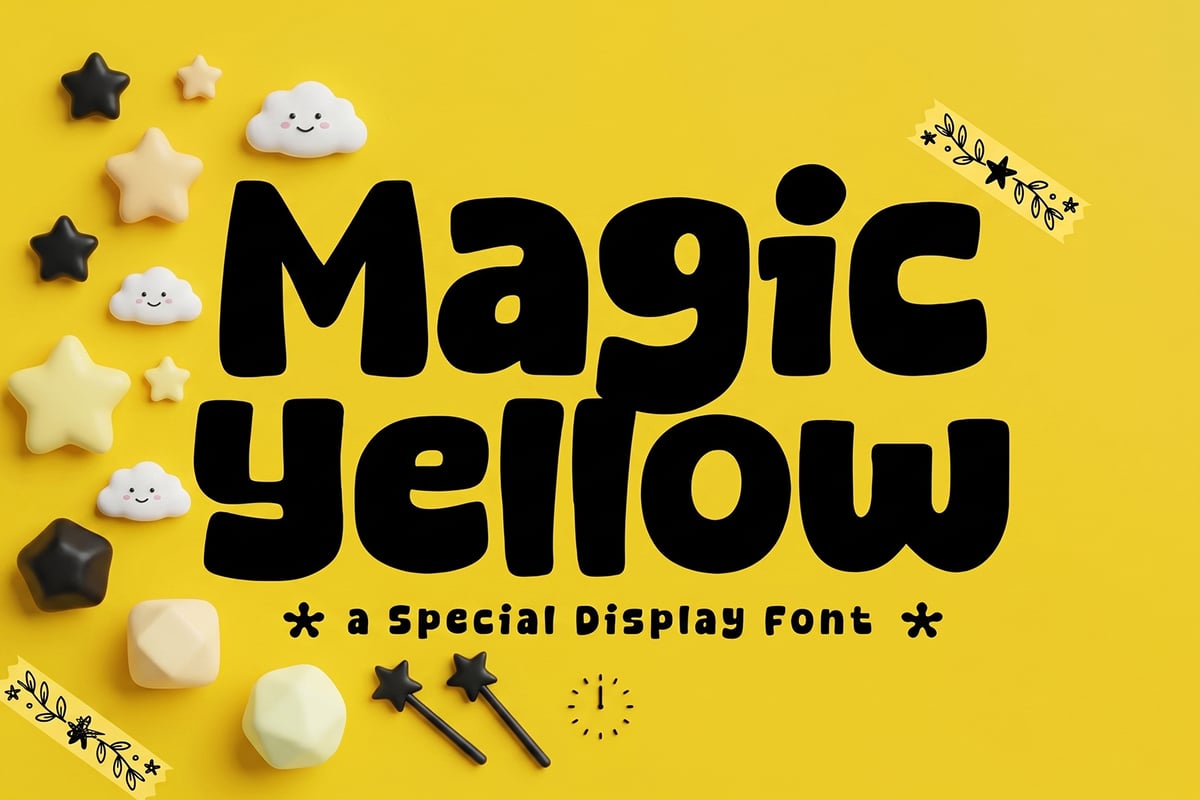
Magic Yellow - Cozy & Display Font
Brighten your designs with Magic Yellow's irresistibly cozy display font that radiates childlike wonder and vibrant energy!
This contemporary handwritten typeface bursts with spirited personality that instantly captures attention. Every character overflows with charm, making it the perfect choice for creating memorable designs that truly stand out from the crowd.
Magic Yellow's bold presence and delightful character design offer remarkable versatility across multiple design applications:
- Eye-catching posters and promotional materials
- Distinctive logos and branding projects
- Magazine layouts and editorial design
- Book covers that demand attention
- Banners and signage